Great graphic design is powered by great font selection. But picking great fonts is a challenge most people. Luckily, Canva has made adding great fonts to your designs much easier. In this tutorial, our team of design experts will cover the best paint brush fonts in Canva.
What Are Paint Brush Fonts?
Paint brush fonts are characterized by their distinctive appearance that mimics the strokes and textures created by a paintbrush. Some key features of paint brush fonts include:
- Handwritten appearance: Paint brush fonts often have a natural, organic, and handmade feel, resembling the look of text written or painted by hand using a brush.
- Varied stroke thickness: These fonts often exhibit a range of stroke thicknesses within individual characters, reflecting the varying pressure applied by the paintbrush during writing or painting.
- Textured edges: The edges of the strokes in paint brush fonts can be rough, textured, or irregular, mimicking the appearance of bristles or the uneven distribution of paint on a surface.
- Irregular baseline: Paint brush fonts may have an inconsistent or wavy baseline, adding to the casual and free-flowing appearance of the text.
- Ligatures and connected strokes: Some paint brush fonts feature ligatures or connected strokes between certain letter combinations, which can help achieve a more natural and fluid look, as if the text were painted in a single continuous motion.
- Unique letterforms: Characters in paint brush fonts often have distinctive shapes and features that differ from traditional typefaces, reflecting the individual style and personality of the artist or designer.
- Expressive and artistic: Paint brush fonts tend to be more expressive and artistic compared to standard typefaces, making them ideal for creative projects, such as logos, posters, invitations, or packaging designs where a unique and eye-catching appearance is desired.
- Limited legibility: Due to their unconventional shapes and textures, paint brush fonts can sometimes be less legible than more traditional fonts, especially at smaller sizes or when used for large blocks of text. As a result, they are often used for headlines, titles, or short phrases rather than body text.
Best Canva Paint Brush Fonts
1. WC Mano Negra Bold
WC Mano Negra Bold is a bold, grungy display font with a heavily textured, hand-drawn appearance. Its gritty, urban style is well-suited for projects that require an edgy, streetwise touch, like posters, album covers, or graffiti-inspired designs.
2. Lacquer
Lacquer is a bold and striking display font with a high-contrast, brushstroke-inspired design. Its thick, heavy strokes and slightly tapered edges give it a modern, edgy appearance, making it ideal for eye-catching headlines, posters, album covers, or any project that requires a strong visual impact and a contemporary feel.
3. Waterlily
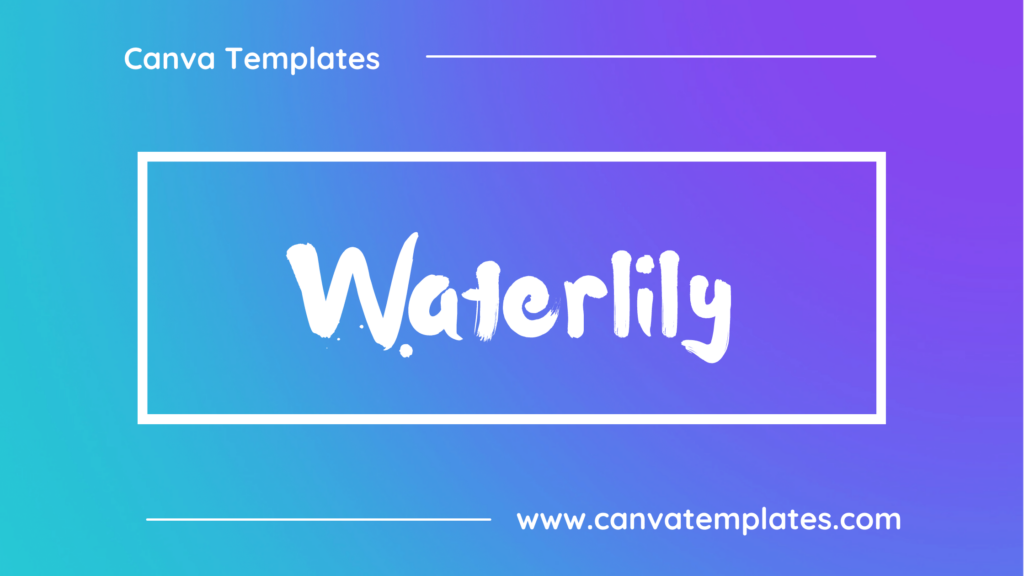
Waterlily is a beautiful, handwritten script font with a gentle and flowing appearance. Its delicate, calligraphic letterforms, featuring elegant swashes and graceful curves, make it perfect for projects that require a romantic, feminine, or artistic touch, such as wedding invitations, greeting cards, or boutique branding.
4. Seashore
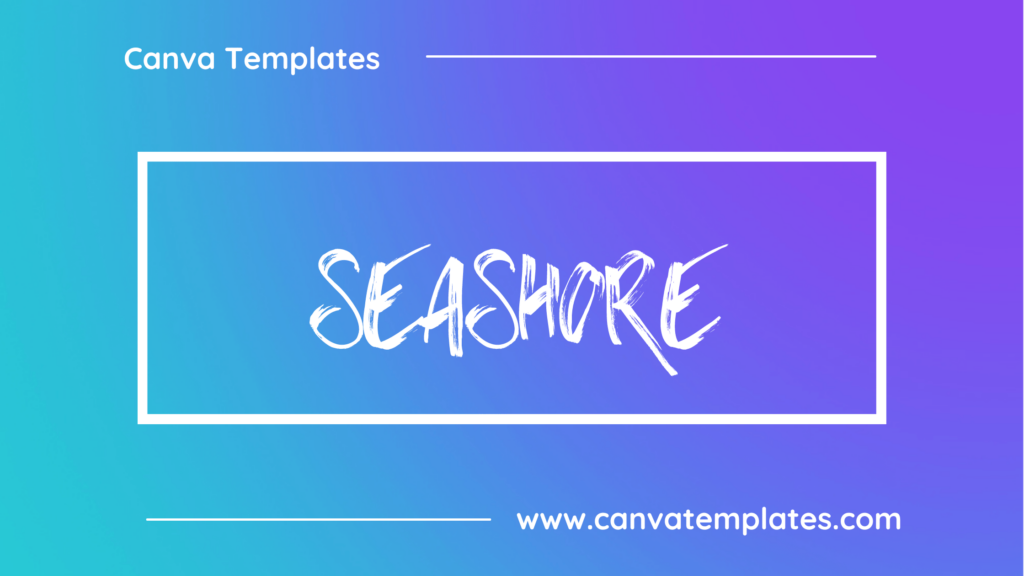
Seashore is a decorative display font that captures the essence of the beach and ocean with its wavy, flowing letterforms. Its organic shapes and playful style make it a fitting choice for projects with a nautical or coastal theme, such as invitations, signage, or packaging for beach-themed products.
5. Edo
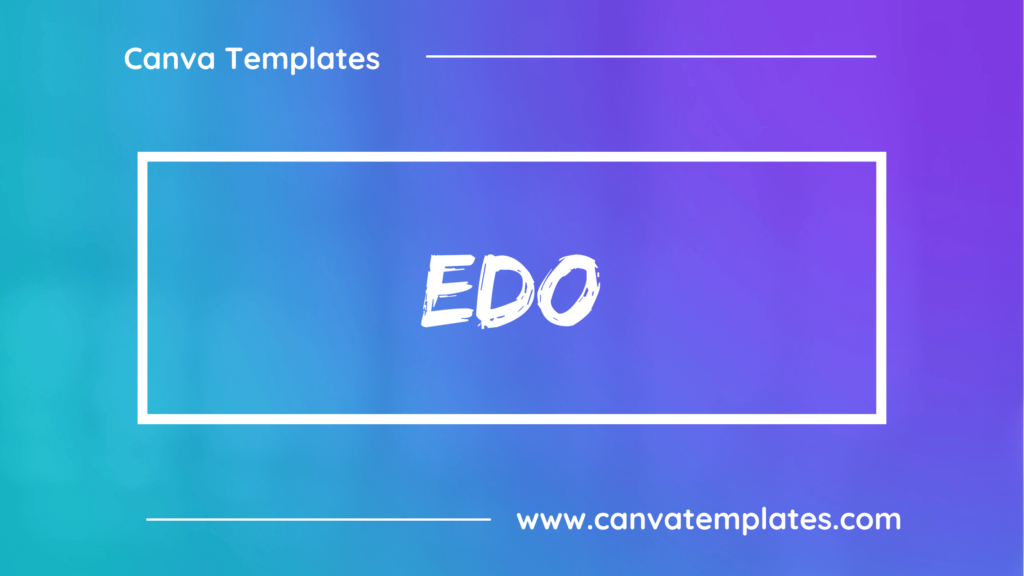
Edo is a bold, all-caps display font inspired by Japanese design aesthetics and traditional woodblock prints. With its blocky, angular letterforms and slightly rough texture, Edo is a great choice for projects that require a strong visual impact, such as posters, logos, and headlines.
6. Permanent Marker
Permanent Marker is a bold, handwritten font that mimics the appearance of text written with a marker pen. Its thick, irregular strokes and casual, slightly messy style give it an authentic, hand-drawn feel, making it a great choice for projects that require a personal touch, such as posters, informal branding, or creative design elements.
7. Brusher
Brusher is a modern and stylish brush script font characterized by its smooth and flowing letterforms. Its elegant yet casual appearance is well-suited for logos, fashion branding, and other design projects that require a contemporary and sophisticated touch.
8. Feeling Passionate
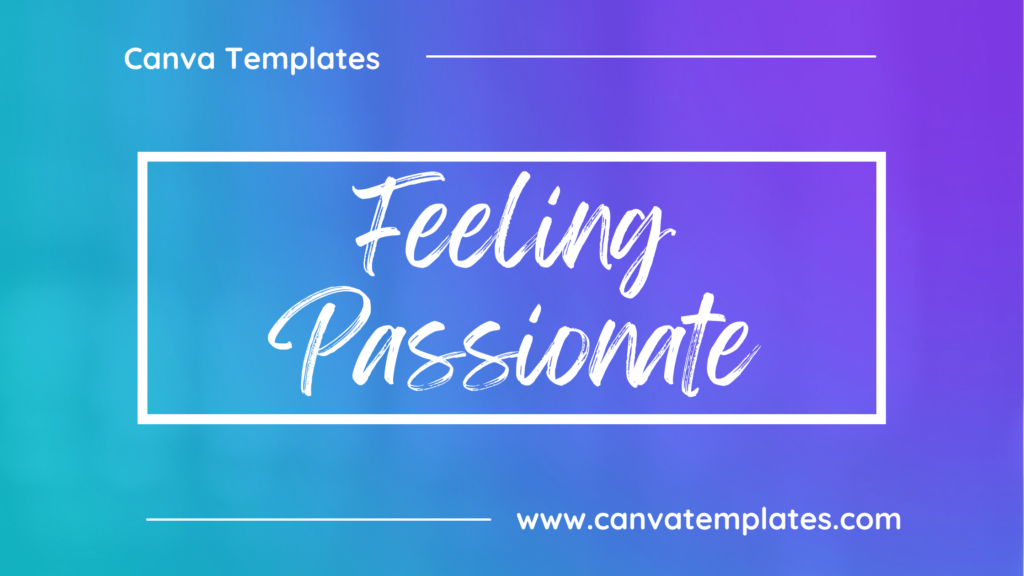
Feeling Passionate is an expressive, handwritten script font with a romantic and emotive quality. Its flowing and organic letterforms make it a fitting choice for wedding invitations, love-themed designs, and projects that require an intimate touch.
9. Have Heart One
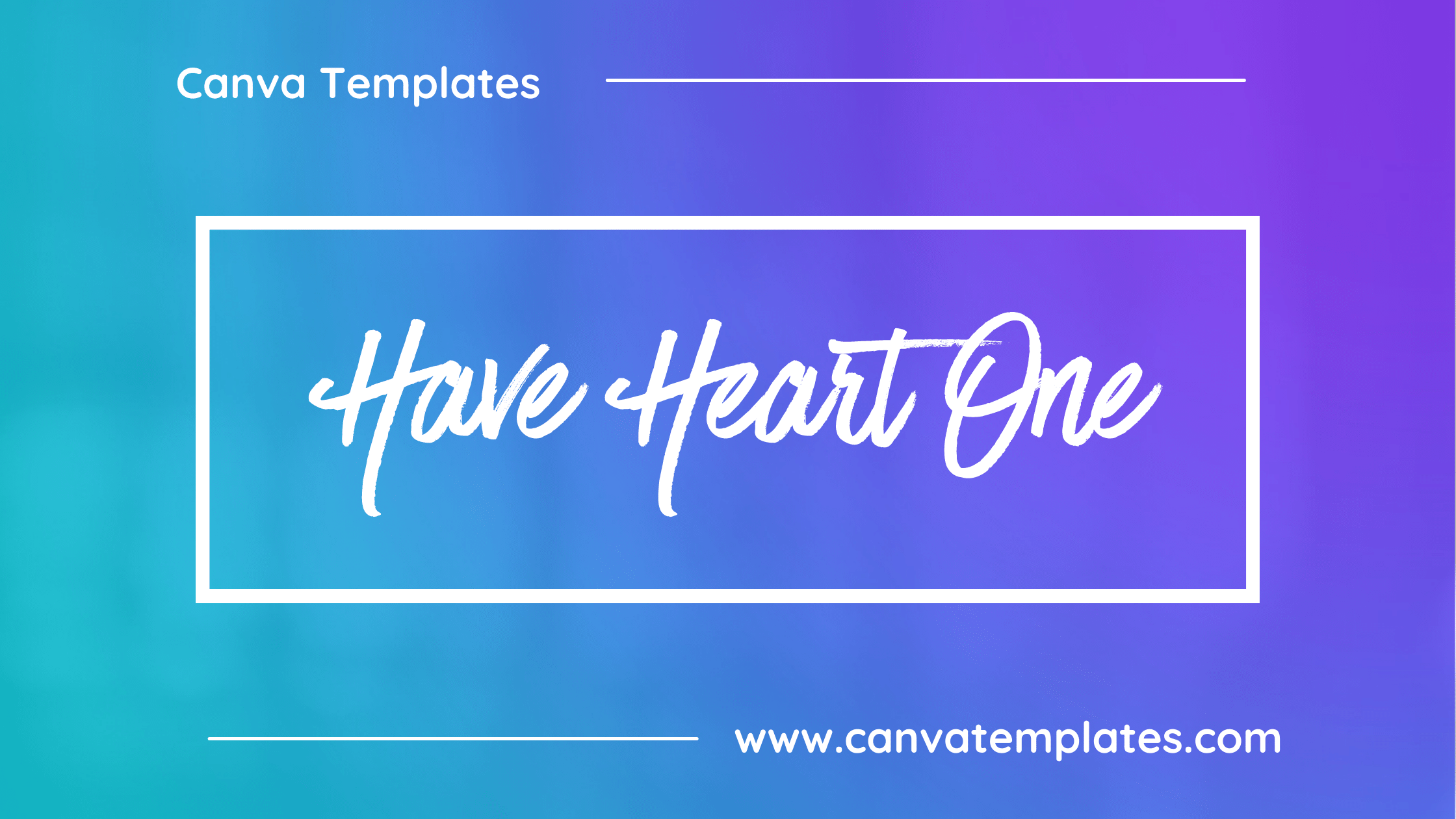
Have Heart One is a bold, hand-drawn brush script font with a strong, dynamic style. Its thick strokes and irregular shapes lend themselves well to designs that require a sense of energy and movement, such as posters, logos, and apparel.
10. Finger Paint
Finger Paint is a playful, handwritten font that mimics the appearance of letters drawn with finger paint. Its casual and childlike style makes it perfect for children’s books, educational materials, or any design project that requires a fun and informal touch.